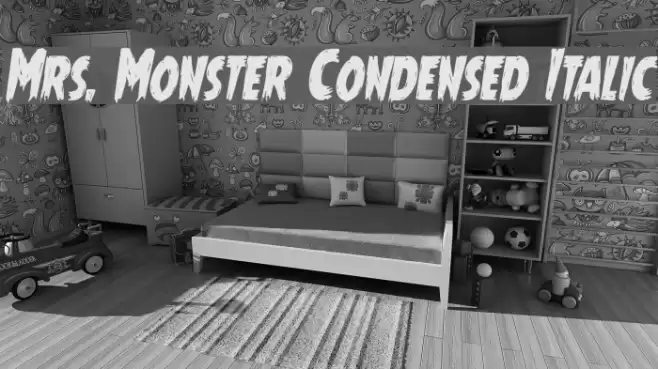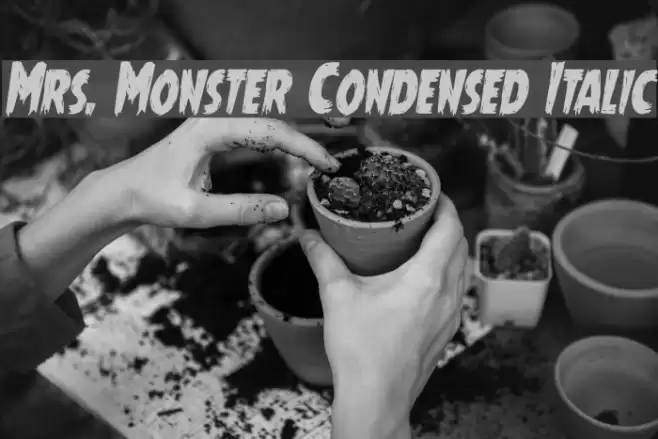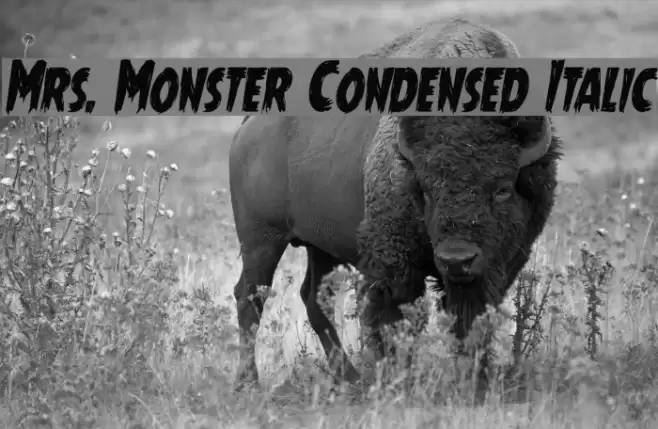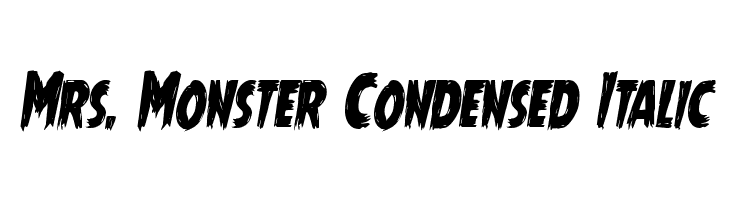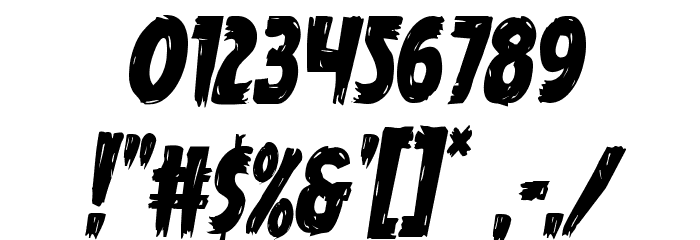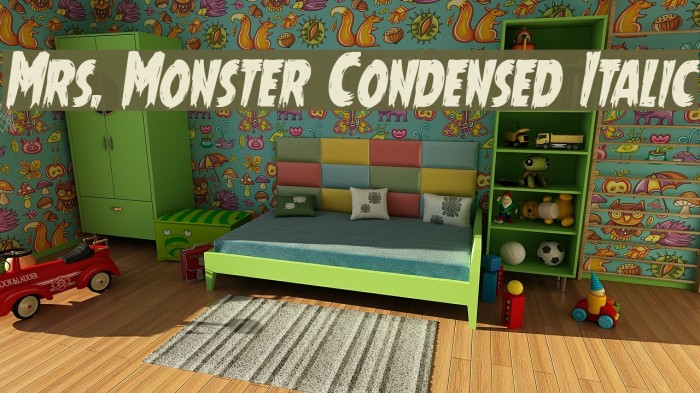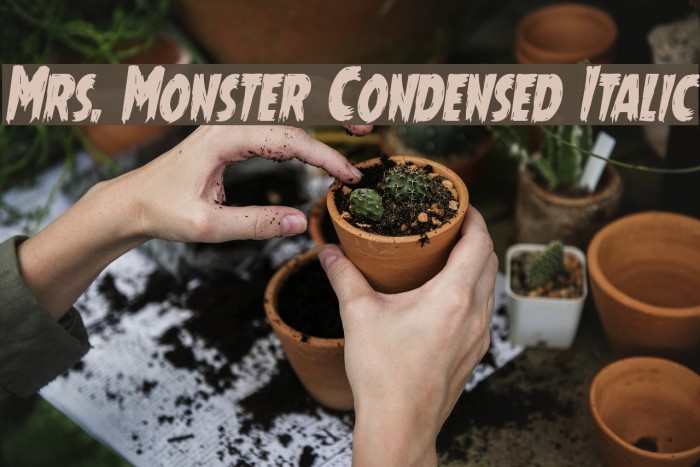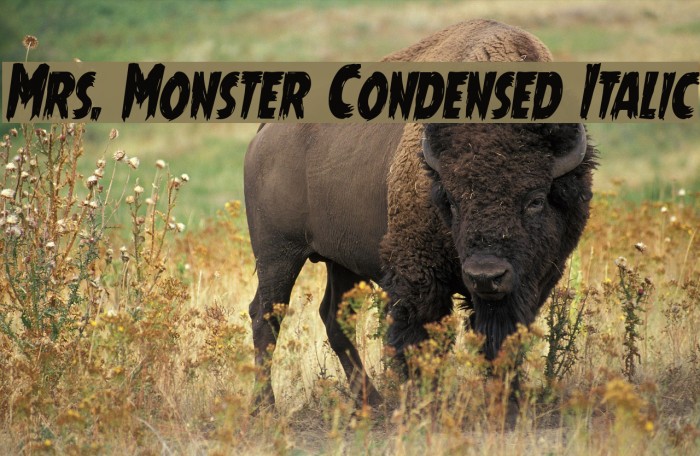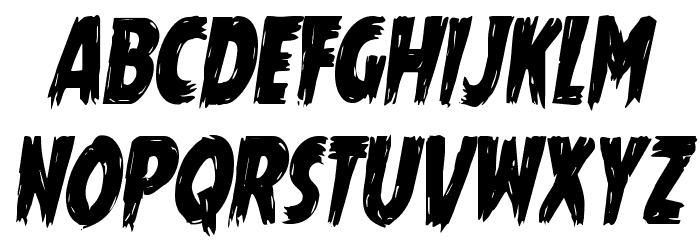
Mrs. Monster Condensed Italic Font
Mrs. Monster Condensed Italic Description
This font features a bold, condensed style with a distinct italic slant, giving it a dynamic and energetic appearance. The characters are designed with jagged, irregular edges, creating a sense of movement and intensity. This style is reminiscent of horror or thriller themes, making it ideal for projects that require a dramatic and eye-catching typeface. The uppercase and lowercase letters maintain a consistent design, while the numbers and special characters complement the overall aesthetic. The font's condensed nature allows for efficient use of space, making it suitable for headlines or titles where impact is essential.
A bold, condensed italic font with jagged edges, perfect for dramatic themes from Uncategorized fonts.
- Proposed Projects: Ideal for horror movie posters, Halloween event flyers, edgy branding, and graphic novels.
- Character Spacing: Tight